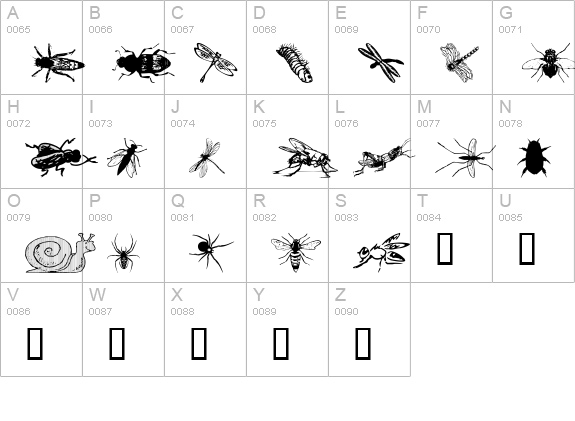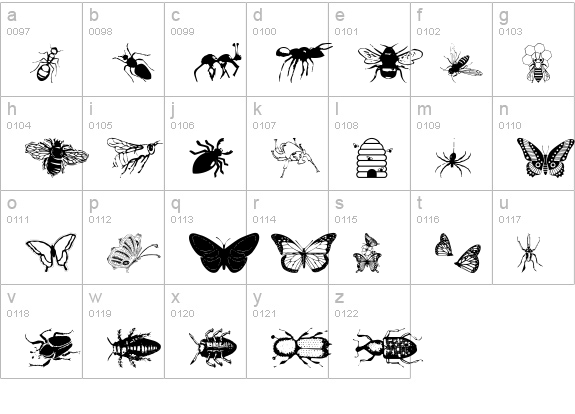
wminsects1 Font Details
The wminsects1 font is a whimsical and playful typeface that is perfect for adding a touch of nature-inspired charm to your designs. With its intricate insect motifs and delicate details, this font is sure to make a statement. Whether you're working on a project related to the great outdoors or simply want to inject some fun into your work, wminsects1 is the perfect choice. What's even better is that this font is completely free to download at FontsMarket.com. Yes, that's right - you can get your hands on this delightful font at no cost at all. So why wait? Add a touch of whimsy to your designs today with wminsects1!